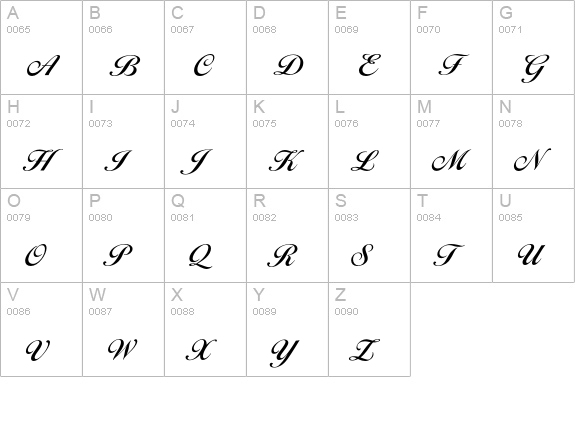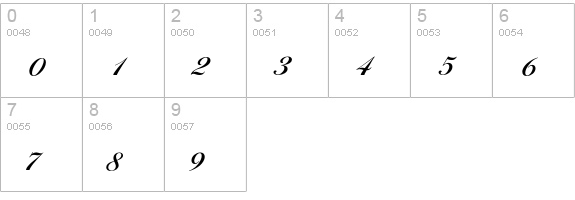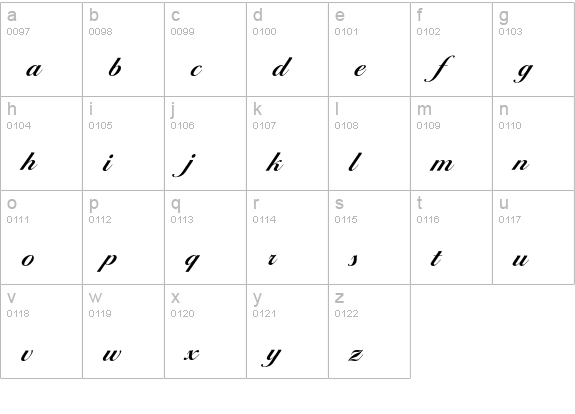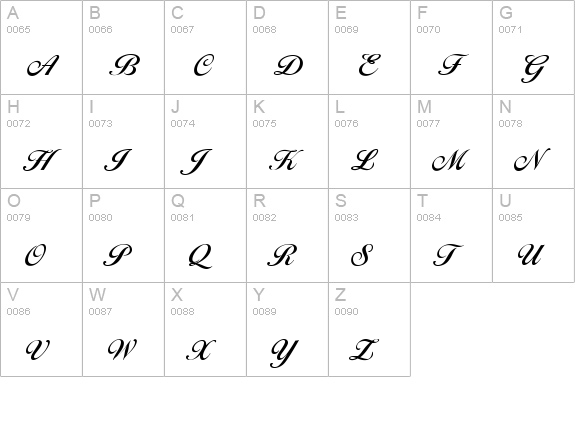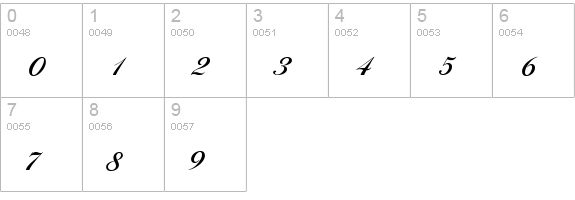
Ballantines-DemiBold Font Details
Ballantines-DemiBold is a sub-bold, structured variant in the Ballantines typeface family \xE2\x80\x94 well suited to sub-headlines and emphasised passages.
Ballantines-DemiBold font is a modern and stylish typeface that exudes confidence and sophistication. With its bold and striking appearance, this font is perfect for creating eye-catching designs that demand attention. The sleek lines and elegant curves of Ballantines-DemiBold make it a versatile choice for a wide range of projects, from branding to editorial design. The best part? Ballantines-DemiBold is available for free download at FontsMarket.com. This means you can easily access this high-quality font and elevate your designs without breaking the bank. Whether you're working on a professional project or a personal creative endeavor, Ballantines-DemiBold is sure to make a lasting impression. Download it today and unleash your creativity with this stunning typeface.